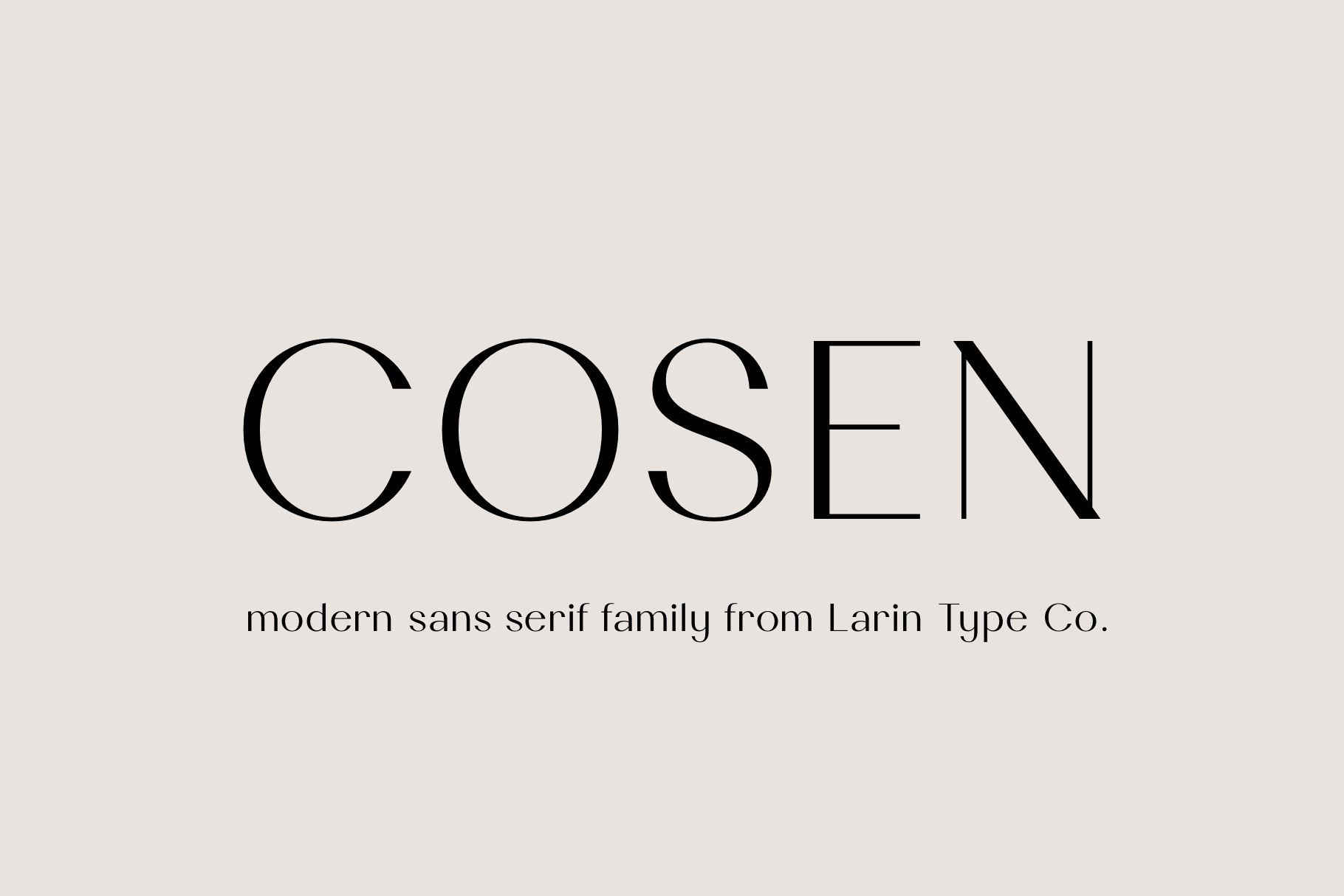
Cosen Font Family
Cosen is an elegant, modern and contrast sans-serif font family, and a great fashionable solution for your project. It includes upright and Italic style, each of them has four weights from thin to bold. This is a multi-purpose font that is perfect for fashion project, it is contrasted, modern and easy to read. With it, you can create logos, banners, use in advertising, packaging, book covers and magazines, headings, descriptions and much more.
Following international symbols support: ÀÁÂÃÄÅĄÇĆÈÉÊËĘÌÍÎÏÐÑŃŁÒÓÔÕÖØÙÚÛÜŚŠŸÝŹŻŽßàáâãäåçèéêëìíîïðñòóôõöøùúûüýÿąćęłńśšźżž
Full alphabet with Uppercase and Lowercase A-z
Numbers, fractions
Punctuation and symbols